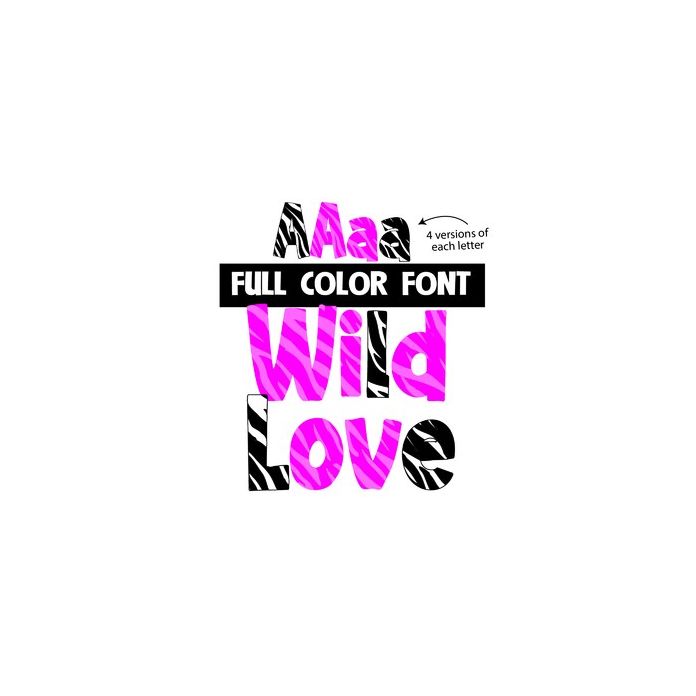
This full-color font features wild-animal stripes in black and white and pinks. Theres an alt uppercase with secondary colors that you can access through your system's character map.